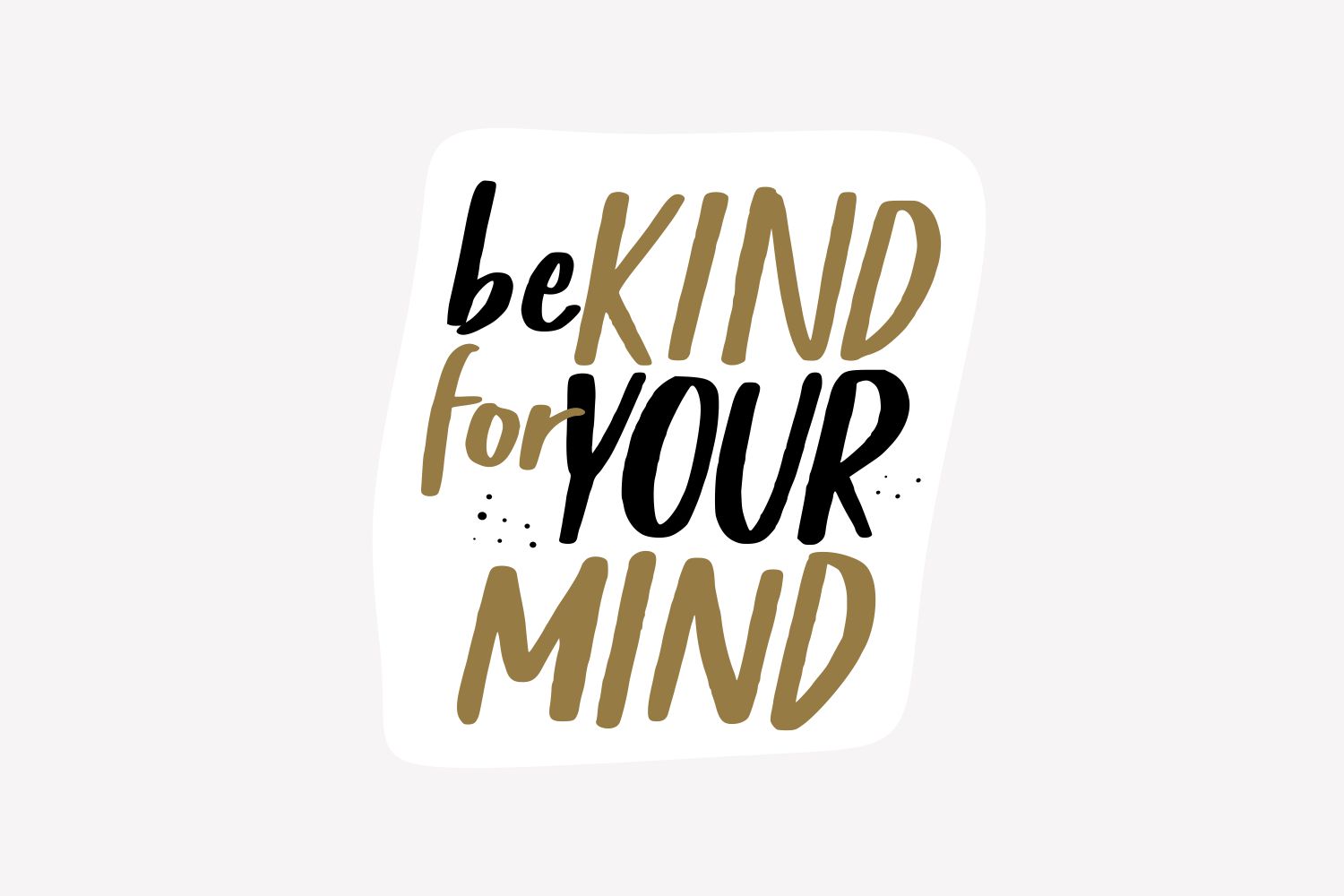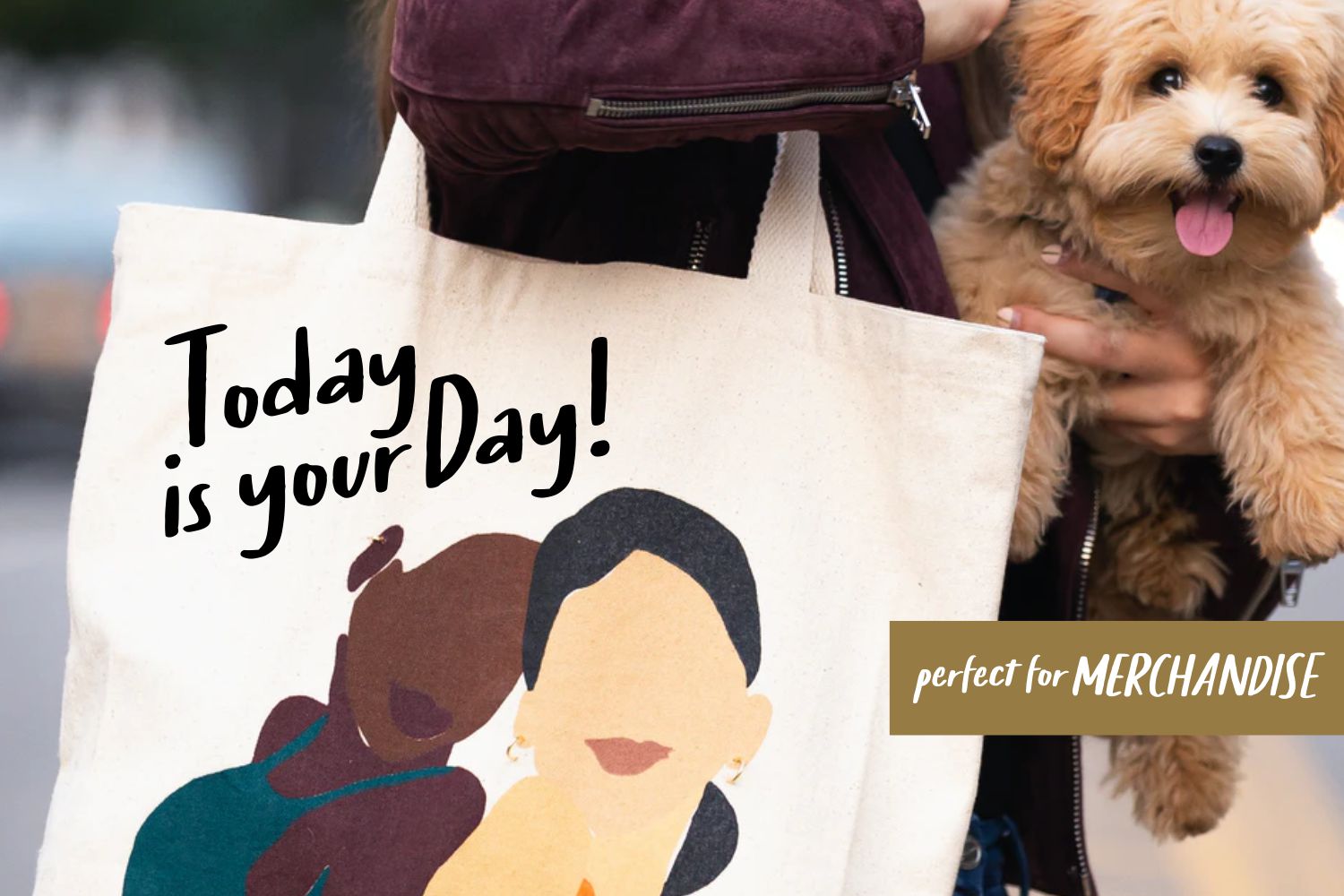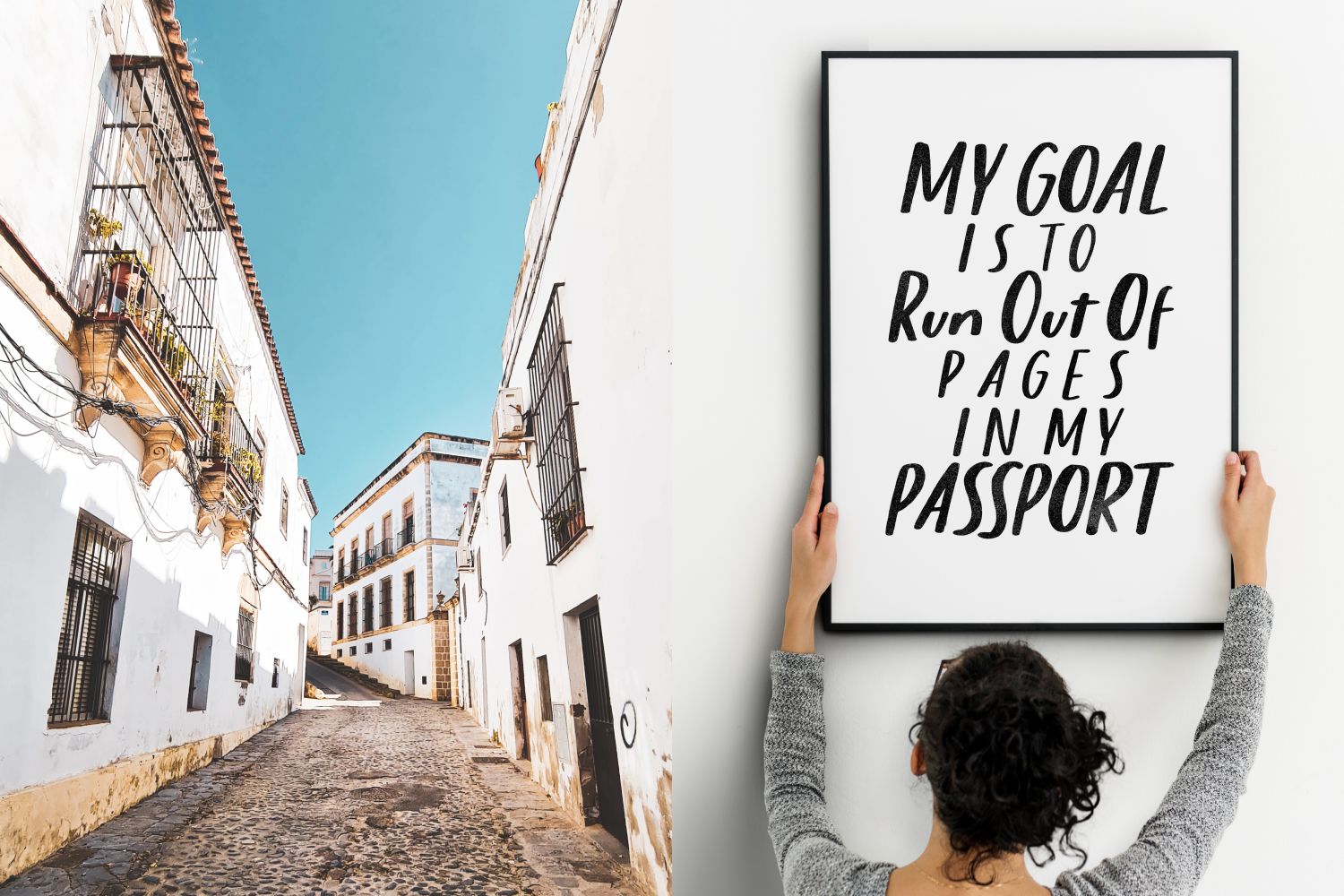
Sticky Buttercup Script Font
This is a simple, adaptable and friendly handwritten font. This font is PUA encoded which means you can access all of the amazing glyphs and ligatures with ease! Use this font for your designs and explore its endless possibilities.